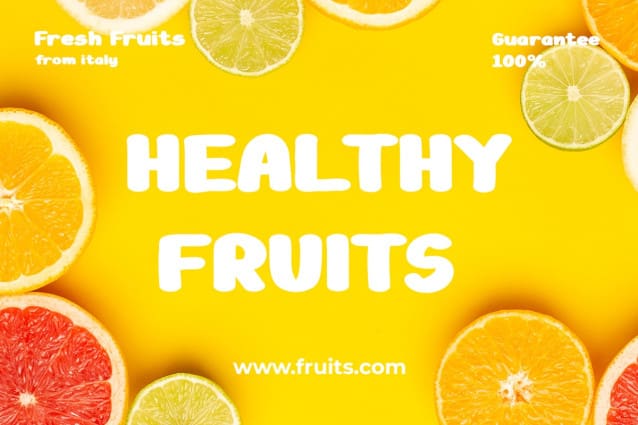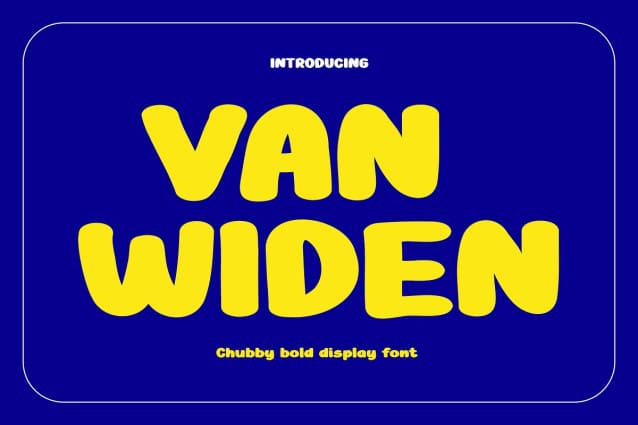
Van Widen Font
Van Widen Font, the chubby and bold display font that will add a fun and playful touch to your designs. This unique font is perfect for Instagram and YouTube content creators who want to make a bold statement with their designs.
As a display font, Van Widen is designed to be used in larger sizes, making it ideal for creating eye-catching headlines and titles. The bold and chubby letters demand attention, making them the perfect choice for movie poster fonts and other attention-grabbing designs.
Whether you’re designing a movie poster or creating content for social media, Van Widen is the perfect bold font to help your designs stand out. Its fun and playful style is sure to grab the attention of your audience and make your content more engaging.
If you’re looking for a poster font or a YouTube font that’s both bold and playful, Van Widen is a perfect choice. Its chubby and bold letters are perfect for creating impactful designs that demand attention and make a statement.
So why not give Van Widen a try and see how it can transform your designs? With its bold and playful style, this fun font is sure to become a favorite among designers who want to add a touch of playfulness to their work.